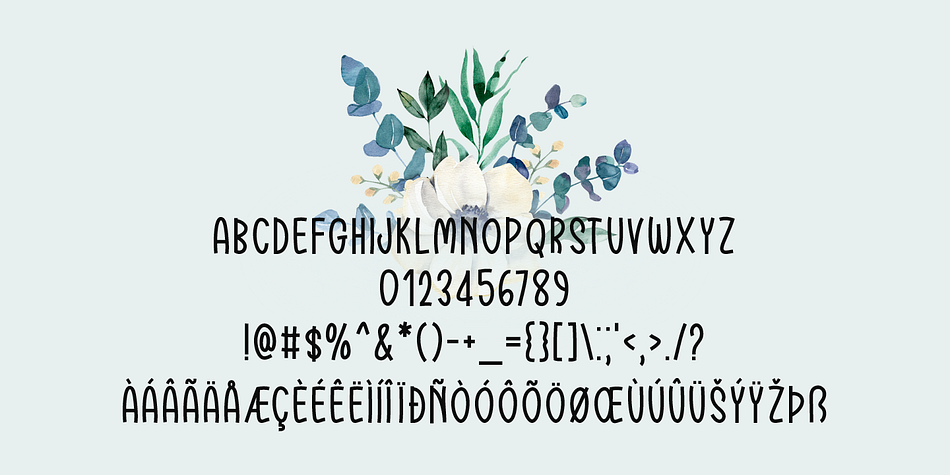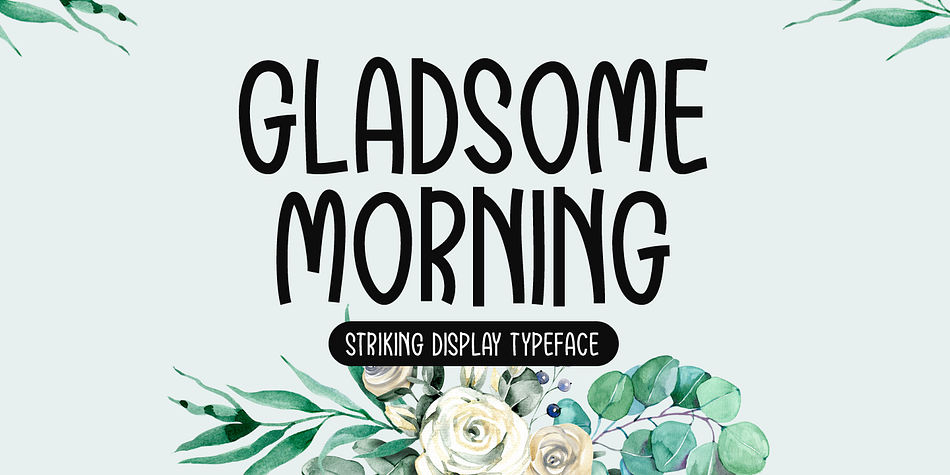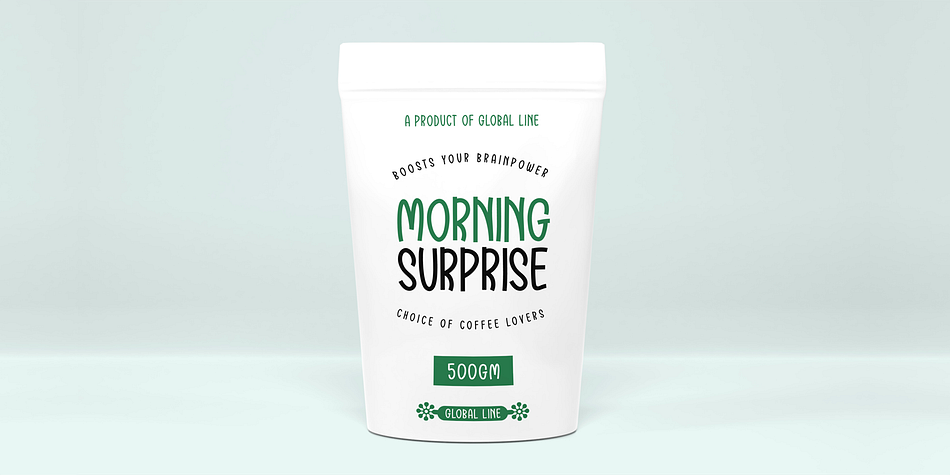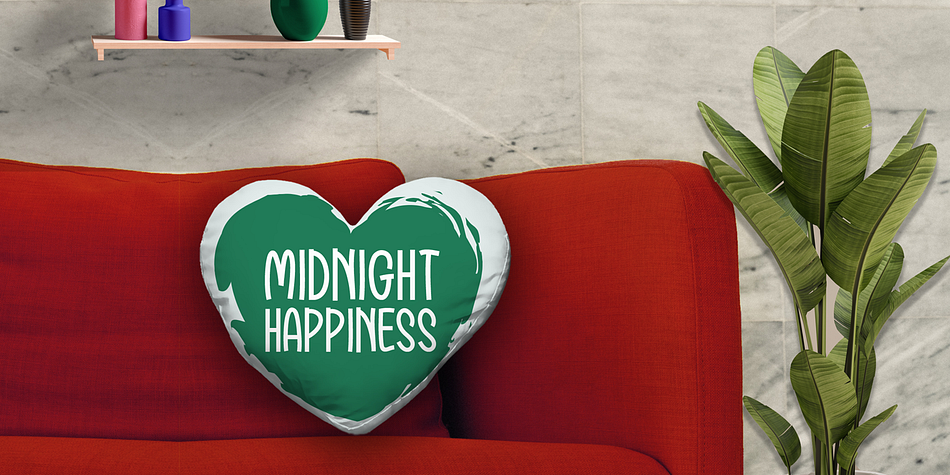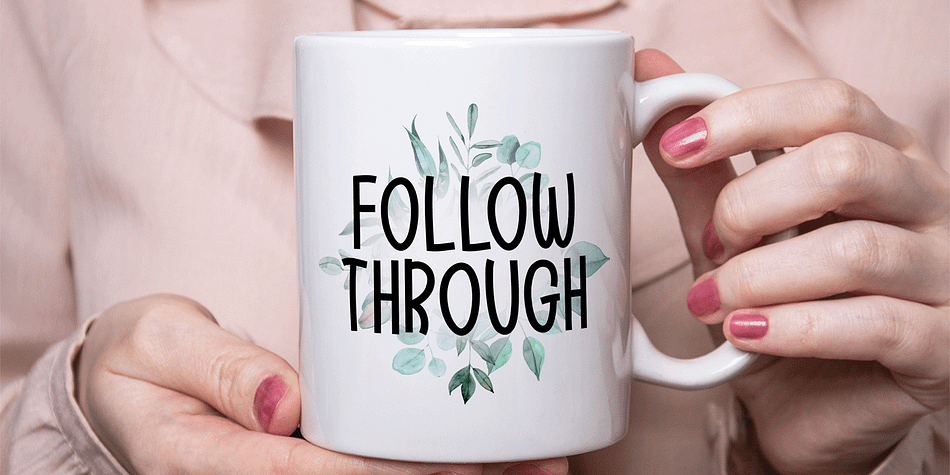
Designed by Md. Shohail Bhuiyan, Gladsome Morning is a hand display and hand drawn font family published by Seemly Fonts.
Gladsome Morning is a brand new display font. It is perfectly suited for stationery, logos, t-shirt, paper, print design, website headers, photo frames, flyers, music covers, posters, image sliders, and much more.